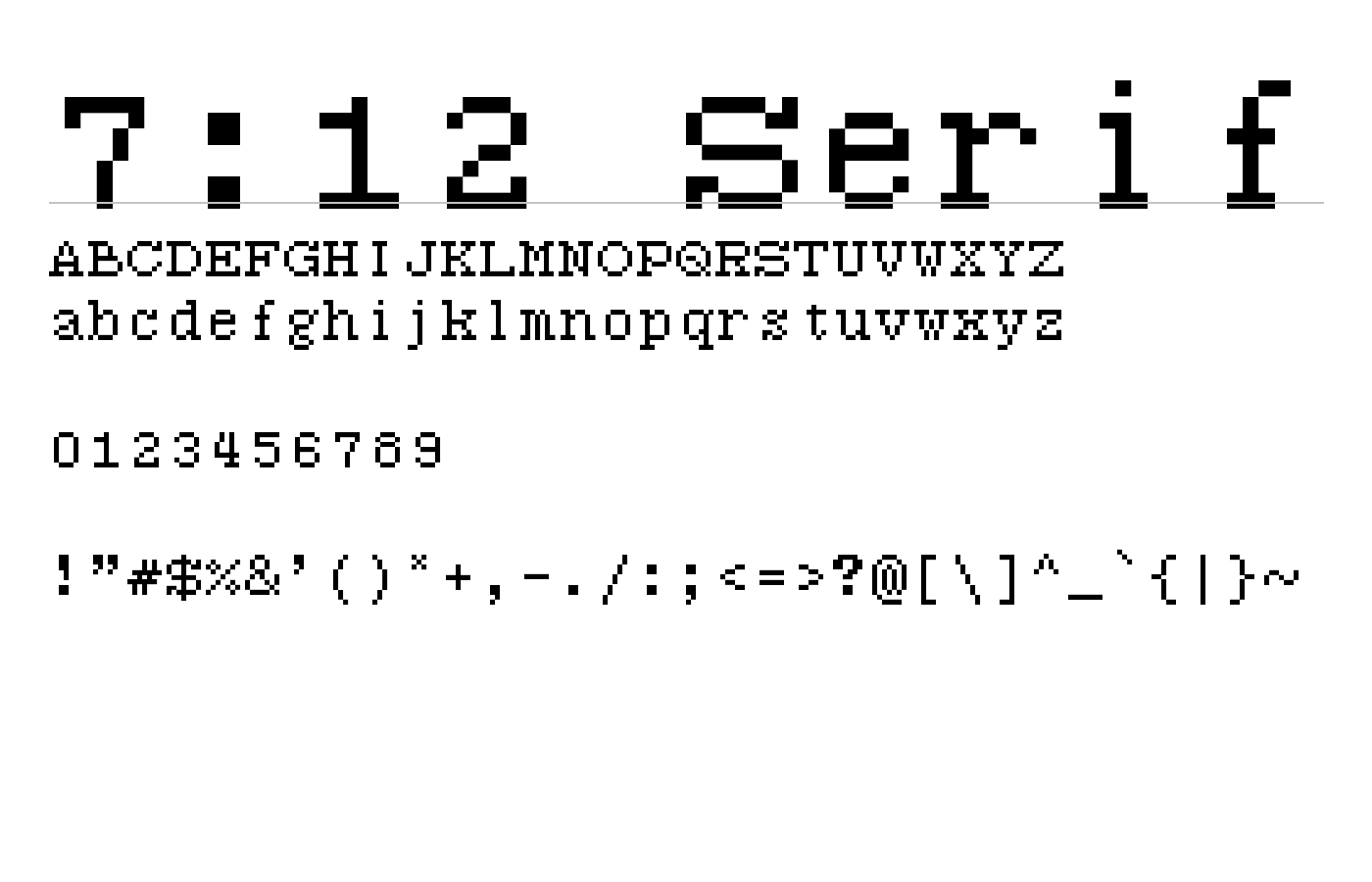
7:12 Serif is a pixelated serif font that blends a vintage typewriter aesthetic with a modern digital feel. Its monospaced, blocky letterforms and sharp, consistent serifs make it ideal for coding, retro-themed designs, or any project seeking a nostalgic yet tech-inspired vibe. This font works best in headlines, captions, or interfaces where a distinctive, old-school digital character is desired.
7:12 Serif Font
About 7:12 Serif Font